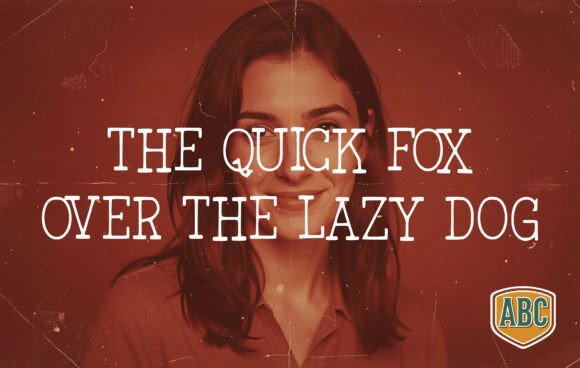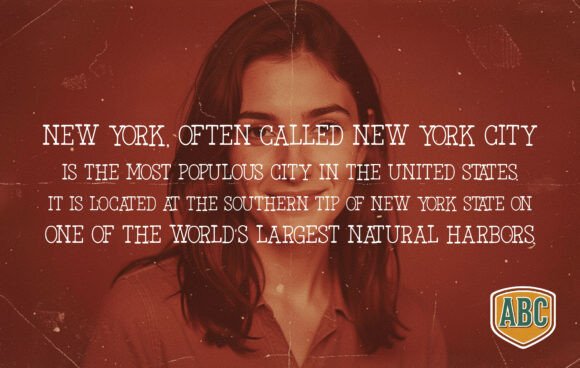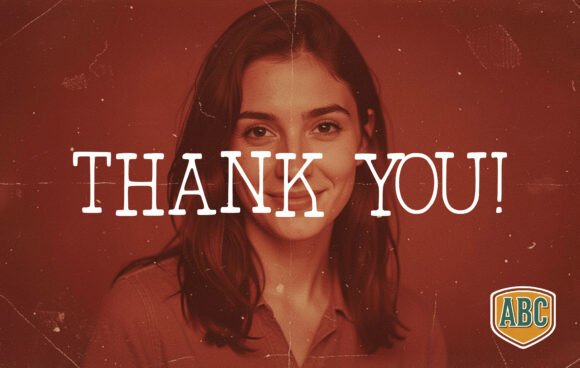
Discover the Unique Charm of Firebrick Font
In the vast world of typography, few fonts manage to capture the essence of both elegance and approachability. Firebrick font, with its distinctive characteristics, stands out as a remarkable exception. This article delves into the features that make Firebrick a preferred choice among designers and crafters, exploring its versatility, aesthetic appeal, and the contexts in which it shines.
The Distinctive Features of Firebrick Font
Firebrick stands out with its tall, slender letterforms and organic, hand-drawn curves. Unlike more aggressive distressed fonts, Firebrick maintains a smooth, medium-weight stroke that feels personal and approachable. Its slightly irregular baseline and natural variations in character width give it a genuine “ink on paper” aesthetic, reminiscent of traditional printing methods. This unique blend of modernity and classic charm sets Firebrick apart in the realm of typography.
Why Choose Firebrick?
There are several compelling reasons to choose Firebrick for your design projects. These can be summarized into a few key advantages:
1. Refined Simplicity
A clean silhouette makes Firebrick versatile for both primary headers and shorter secondary text. Its simplicity is not just about minimalism; it’s about creating a visual impact without overwhelming the viewer. This refined simplicity ensures that the message is conveyed clearly and effectively, making it an excellent choice for a wide range of applications.
2. Warm & Approachable
The soft, rounded terminals of Firebrick create a friendly vibe ideal for lifestyle branding, social media, and invitations. In an era where digital communication often feels cold and impersonal, Firebrick’s warmth can help brands connect with their audience on a more personal level. This warmth is not just about aesthetics; it’s about creating an emotional connection with the viewer.
3. Maximum Contrast
Its bold white rendering pops beautifully against photographic backgrounds and moody, cinematic overlays. This ability to create maximum contrast makes Firebrick an excellent choice for designs that require visual hierarchy and emphasis. Whether it’s a headline that needs to stand out or a design element that needs to pop, Firebrick delivers.
4. Modern Craft
Firebrick is perfectly suited for editorial layouts, fashion lookbooks, and minimalist logo designs. Its modern craft appeal lies in its ability to blend into contemporary designs while adding a touch of sophistication and elegance. For designers and crafters looking for a font that speaks to modern aesthetics without sacrificing personality, Firebrick is an exceptional choice.
Applications of Firebrick Font
The versatility of Firebrick font makes it suitable for a variety of applications. Here are some of the areas where Firebrick truly excels:
- Lifestyle Branding: Firebrick’s approachable and warm feel makes it perfect for brands that want to appear friendly and inviting.
- Editorial Layouts: For magazines, journals, and any form of written content, Firebrick adds a touch of elegance and sophistication.
- Fashion Lookbooks: The font’s modern and sleek appearance makes it ideal for showcasing fashion items in a stylish and compelling way.
- Social Media: Firebrick’s readability and aesthetic appeal make it a great choice for social media posts, helping to enhance engagement and brand recognition.
- Invitations: Whether it’s a wedding invitation, a party invite, or any formal event, Firebrick’s warm and elegant feel sets the right tone.
| Author | ABC Font |
Firebrick font offers a unique blend of elegance, approachability, and versatility, making it a valuable addition to any designer’s toolkit. Its distinctive features, such as tall and slender letterforms, organic curves, and a smooth stroke, provide a refreshing alternative to more commonly used fonts. Whether you’re working on lifestyle branding, editorial layouts, fashion lookbooks, or any other project that requires a touch of sophistication and warmth, Firebrick is an excellent choice. By choosing Firebrick, designers and crafters can create visually compelling and emotionally engaging designs that resonate with their audience.